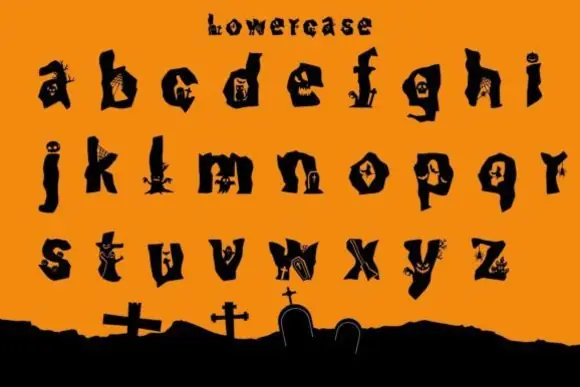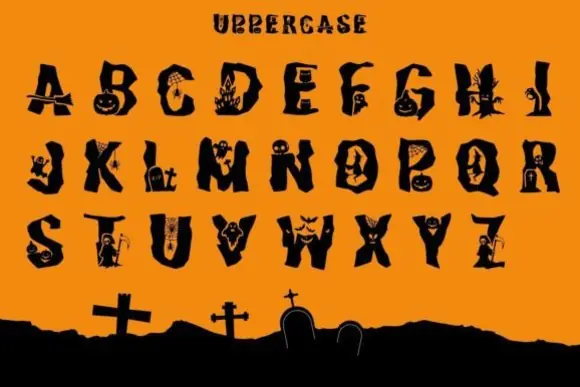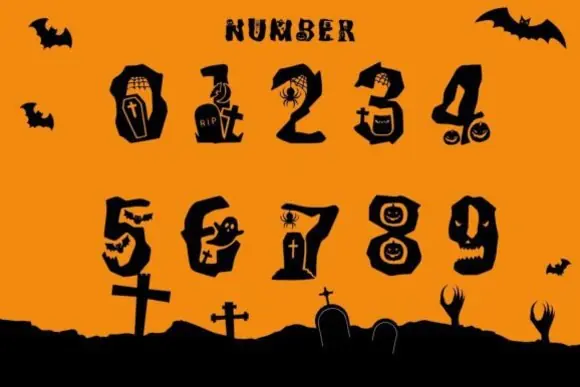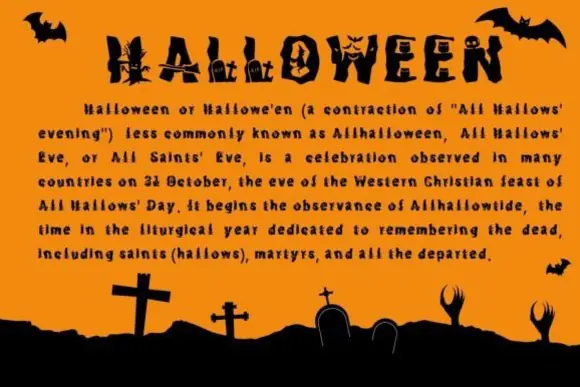
Scary Halloween 2022 Font | Decorative Spooky Graphic Typeface for Printed Fabrics, Packaging, Billboards, Publications & Halloween Designs
Create bold, spooky, and highly decorative seasonal artwork with Scary Halloween 2022 Font, a Halloween-inspired typeface featuring spooktacular graphics inside both alphabetic and alphanumeric characters. This font is designed to make your text feel instantly festive, scary, and visually engaging.
Scary Halloween 2022 Font is perfect for Halloween designs that need more than plain lettering. Its decorative character style makes it useful for printed fabrics, apparel designs, publications, billboards, packaging, posters, banners, greeting cards, stickers, mugs, party invitations, social media graphics, printable signs, and seasonal branding.
This typeface is a strong choice for designers, crafters, small business owners, digital product sellers, and print creators who want to produce eye-catching Halloween products with a spooky graphic style. Whether you are creating fabric prints, large display ads, product packaging, or festive merchandise, this font helps your typography stand out with Halloween character and charm.
• Printed fabrics
• Halloween t-shirt designs
• Product packaging
• Billboards and display ads
• Publications and magazine layouts
• Posters and banners
• Greeting cards
• Party invitations
• Stickers and labels
• Mug designs
• Printable wall art
• Seasonal branding
• Digital and print craft projects
• Decorative Halloween typeface
• Includes spooky graphics in alphabetic and alphanumeric characters
• Great for printed fabrics, packaging, and publications
• Strong display style for posters, billboards, and ads
• Perfect for both digital and physical product designs
• Adds instant Halloween atmosphere to creative projects
Scary Halloween 2022 Font is ideal for creating spooky, decorative, and attention-grabbing Halloween designs for apparel, packaging, print materials, and seasonal promotions.